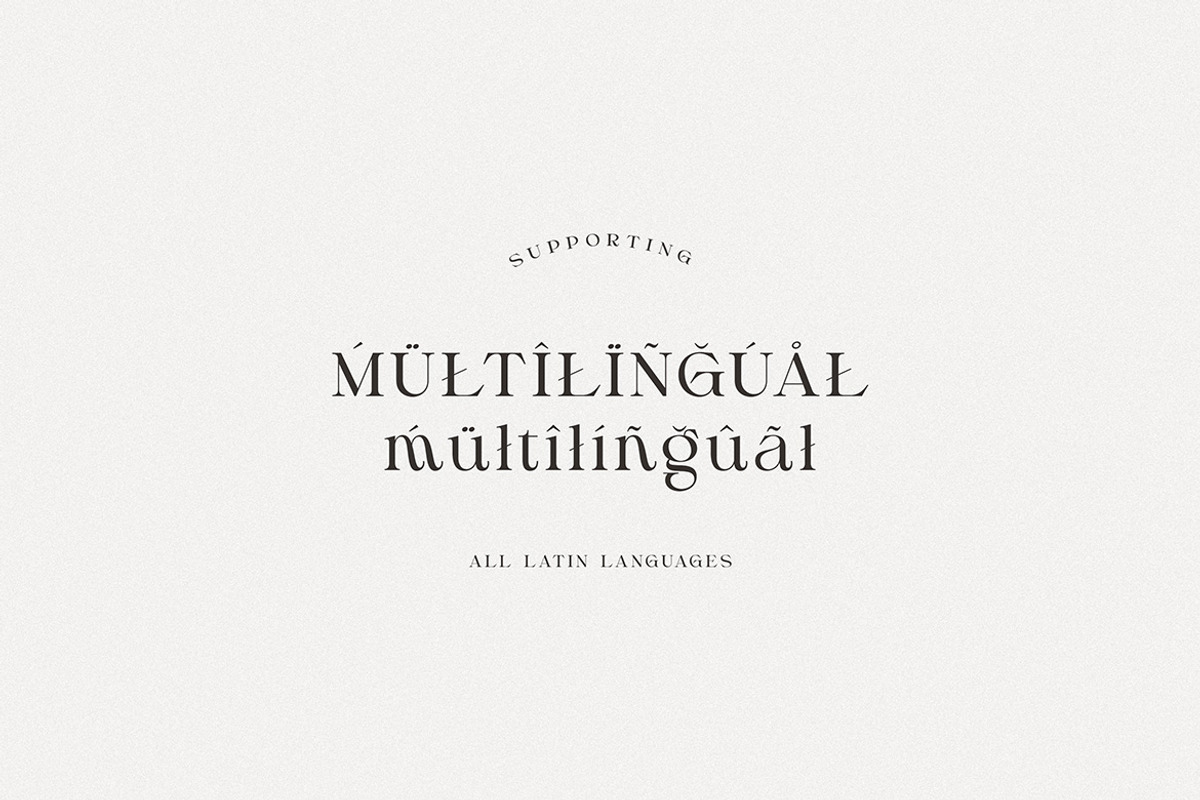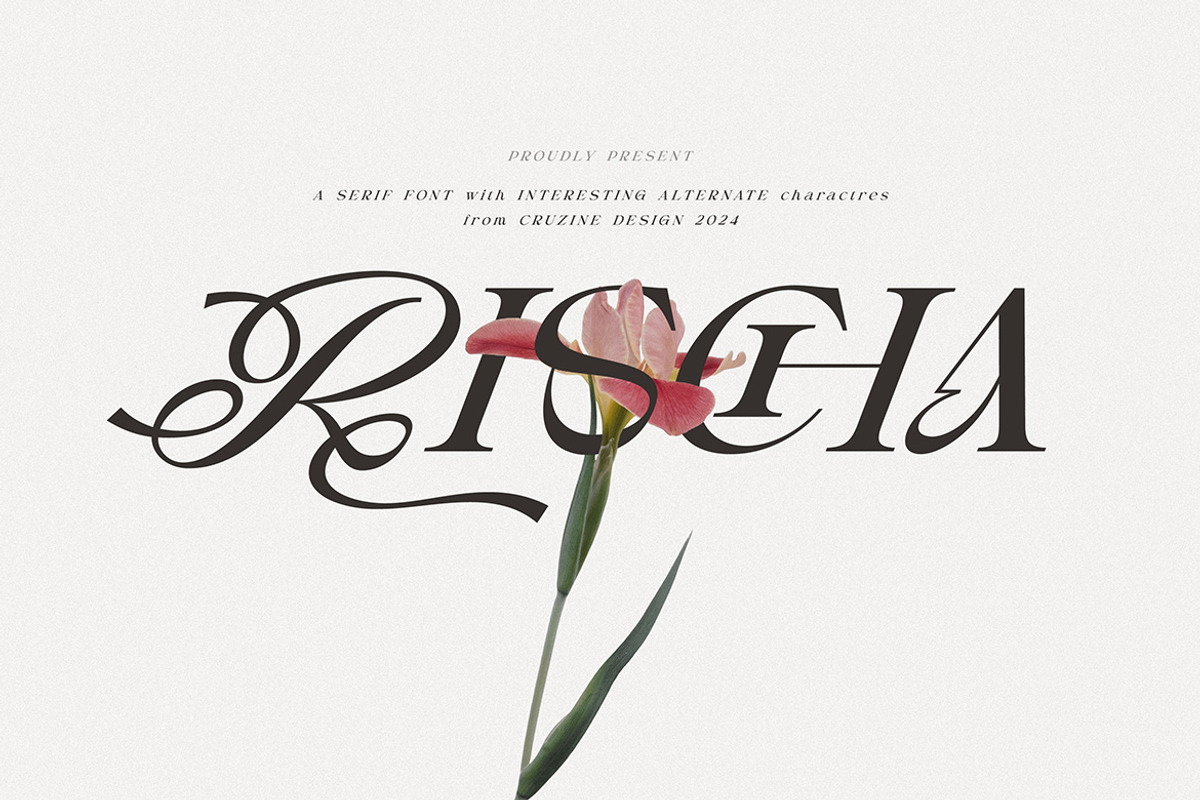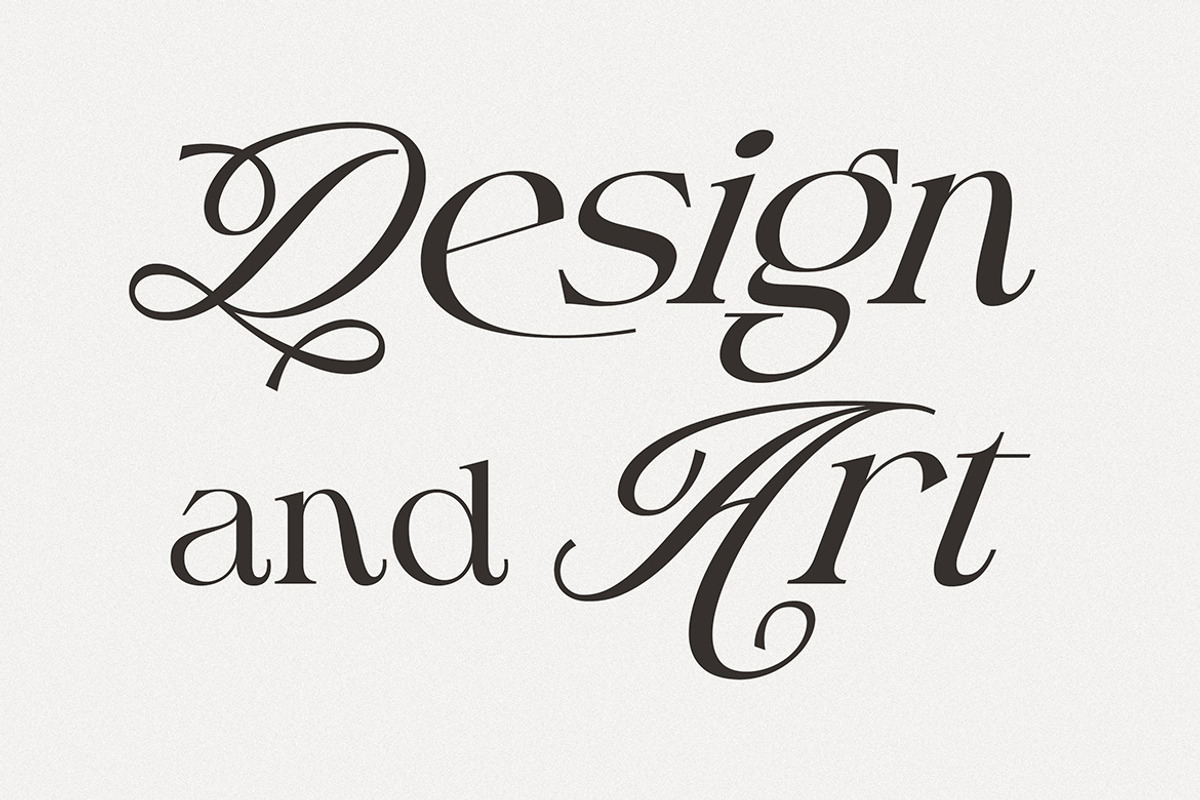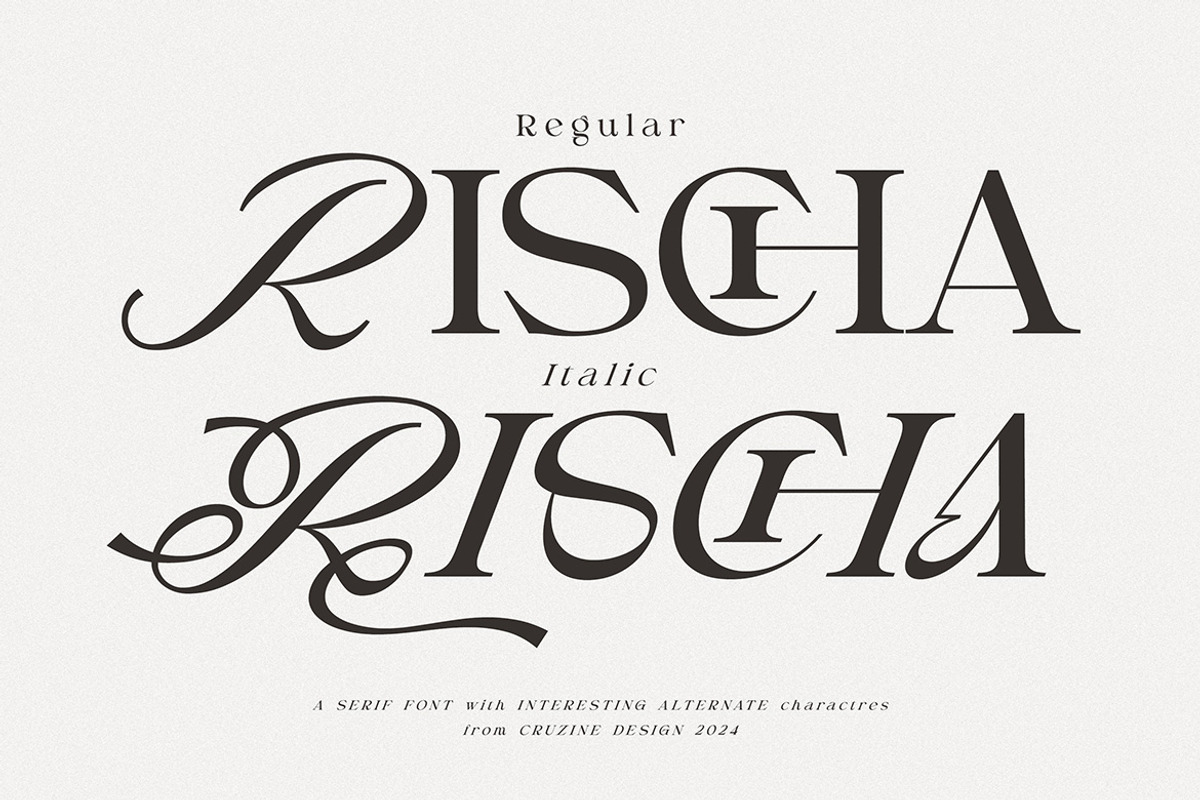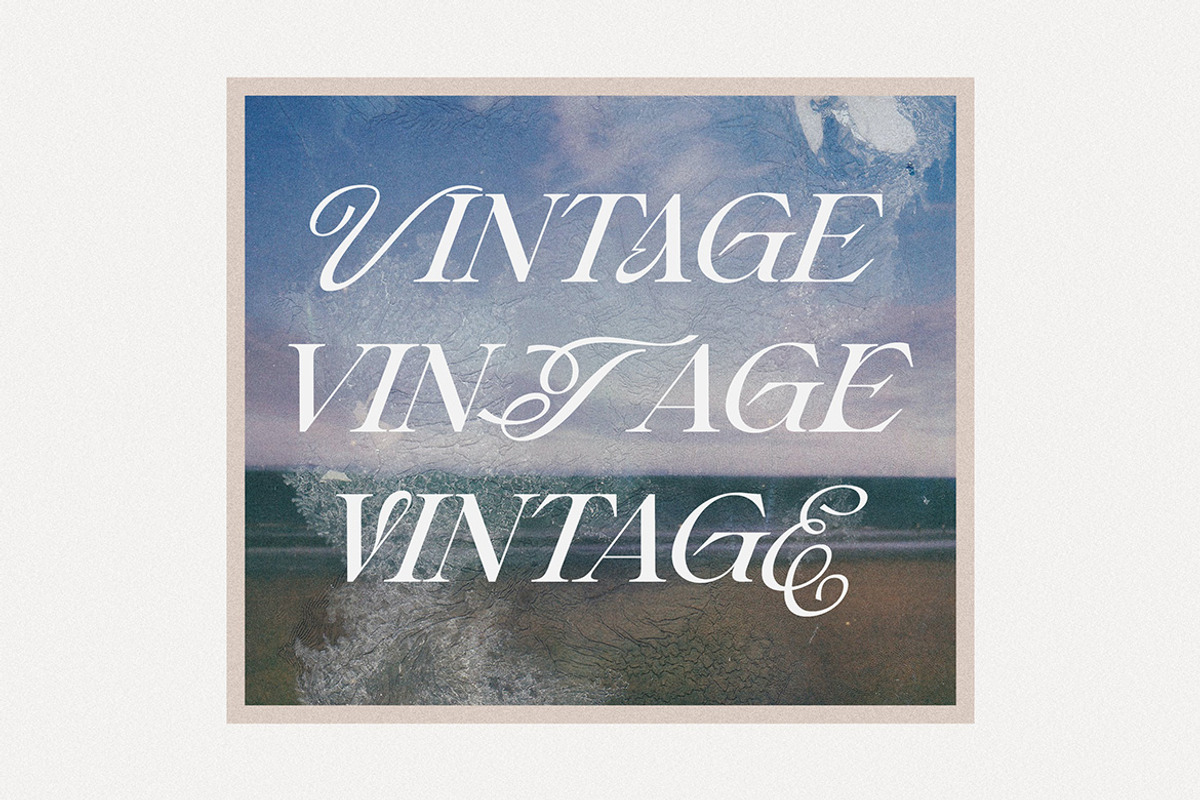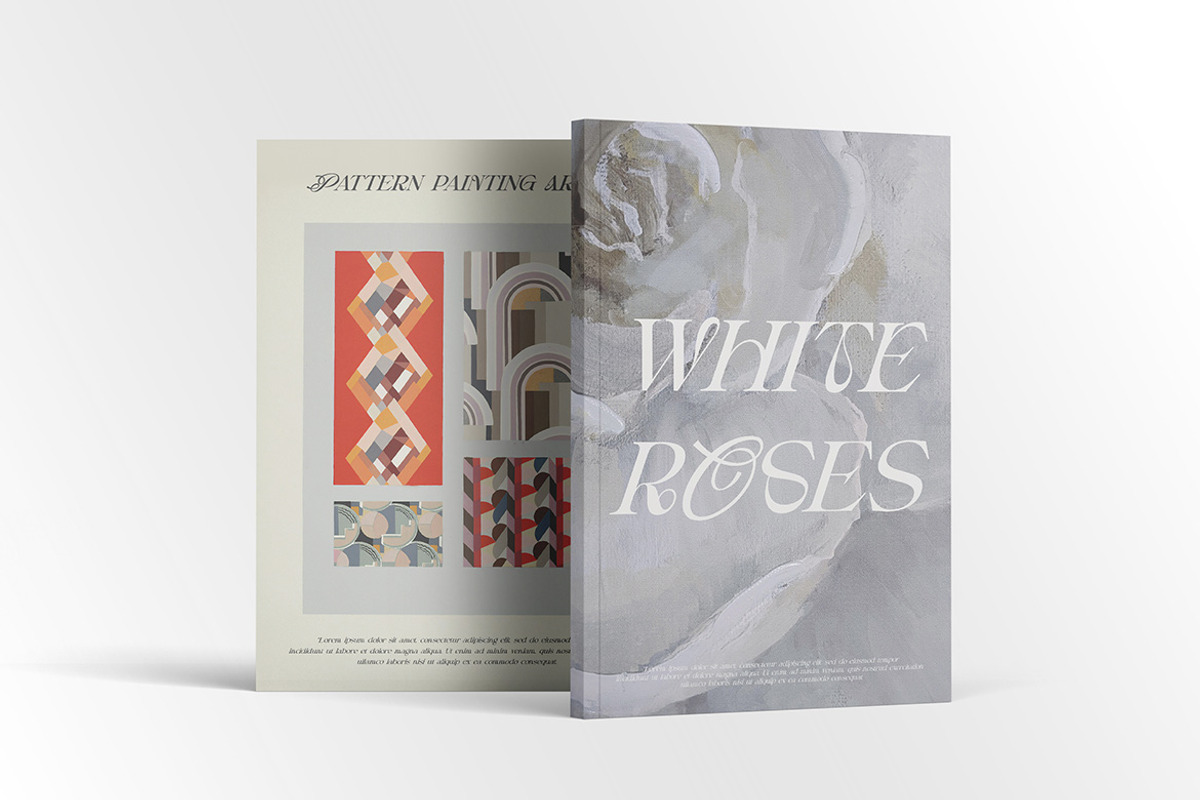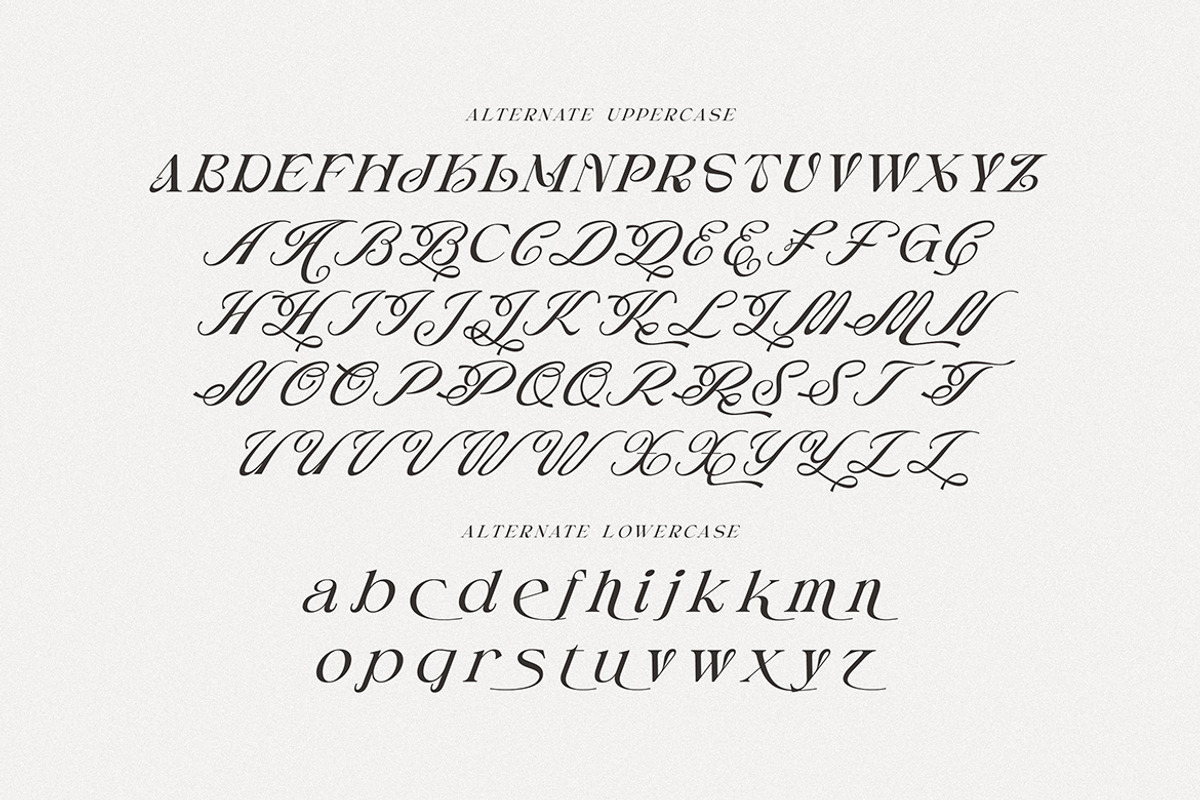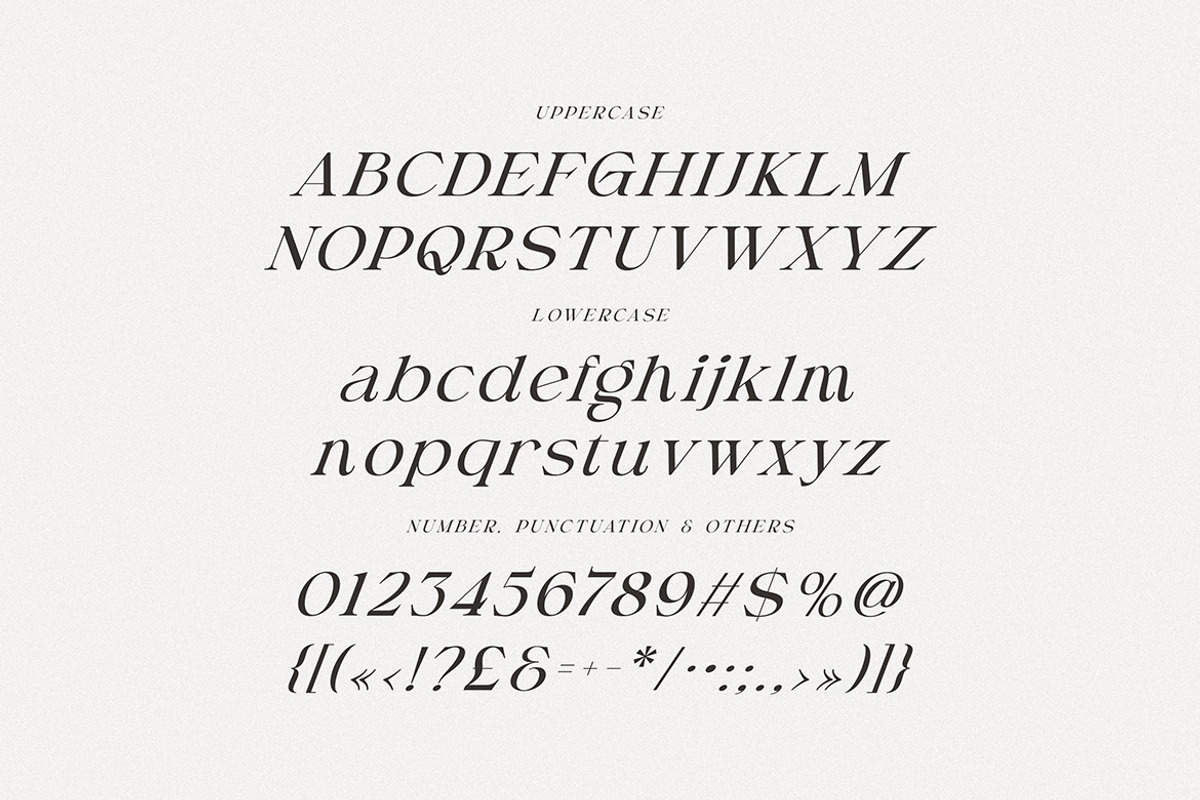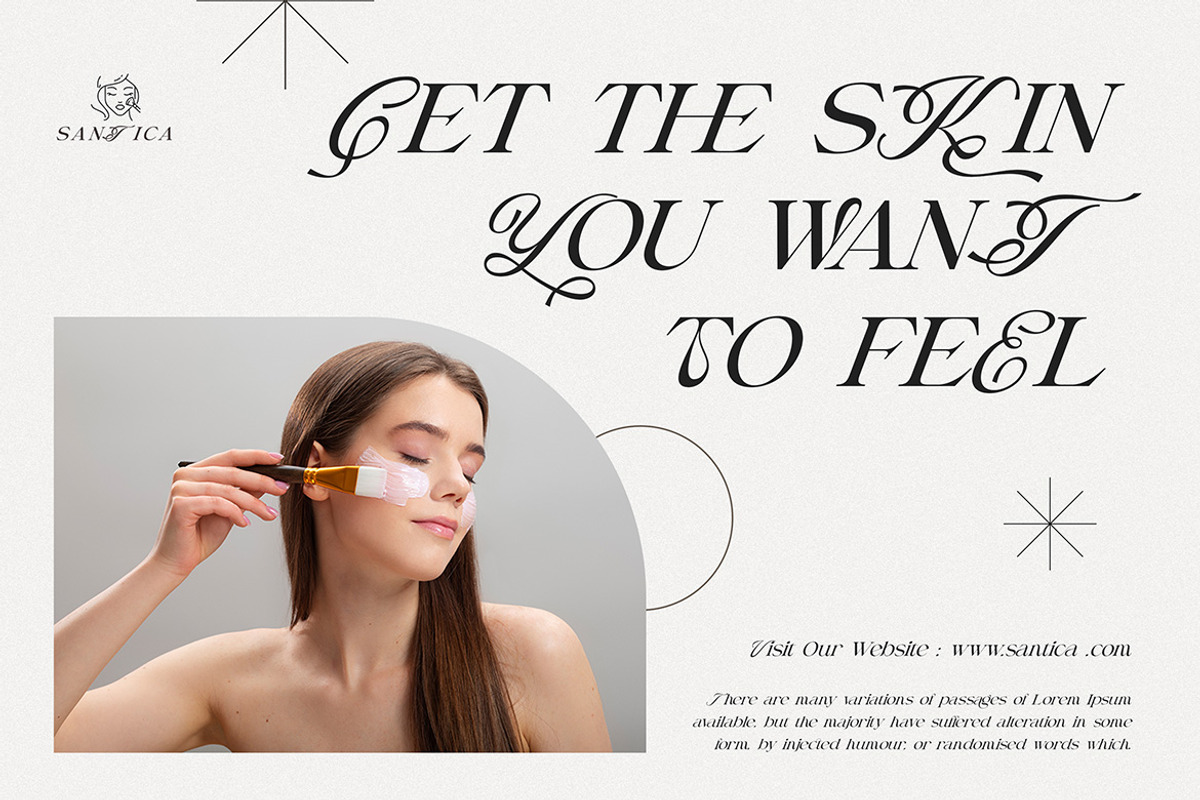
Rischa Unique Luxury Serif
Trendy, elegant, luxury, retro & modern style serif font for your new fancy projects. Stylish, creative and classic style on Rischa font will be great for any modern or classy branding project. Lot of alternates and ligatures will help you to create unique and original logo design or website header! Enjoy :)
- Alternate characters
- Lot of ligatures
- Regular & italic font versions
- Great for modern branding projects!